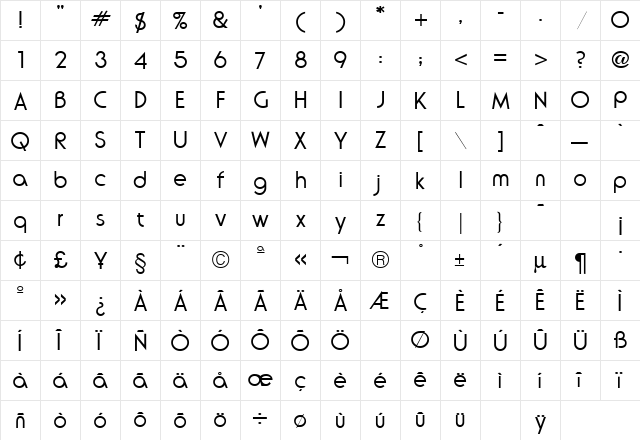
Ronda Light Regular
Design Context for Ronda Light Typeface
Ronda Light is a composed and adaptable typeface that performs quietly and consistently across a wide range of design contexts. Its slender proportions lend an understated elegance to any composition.